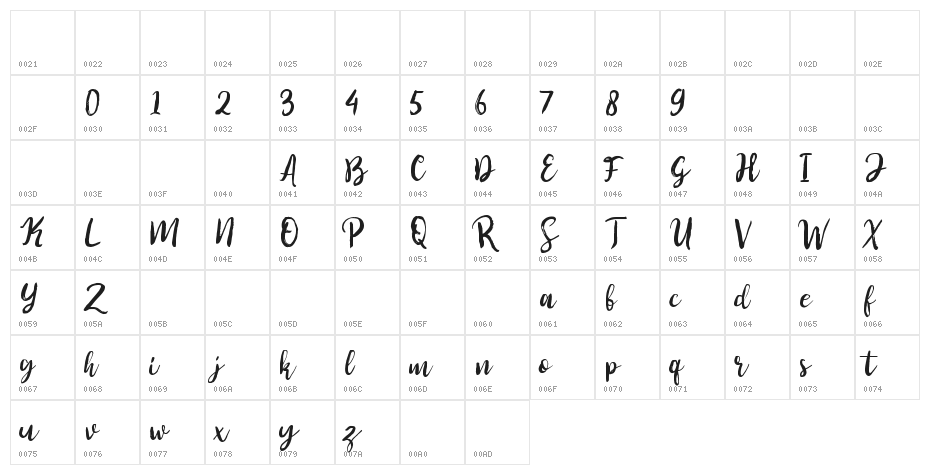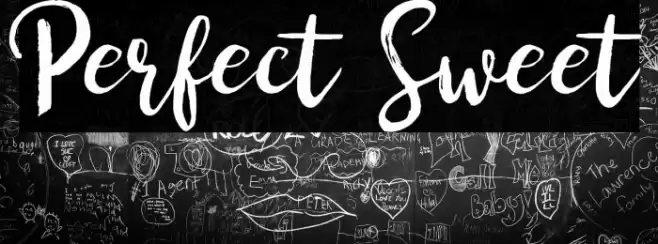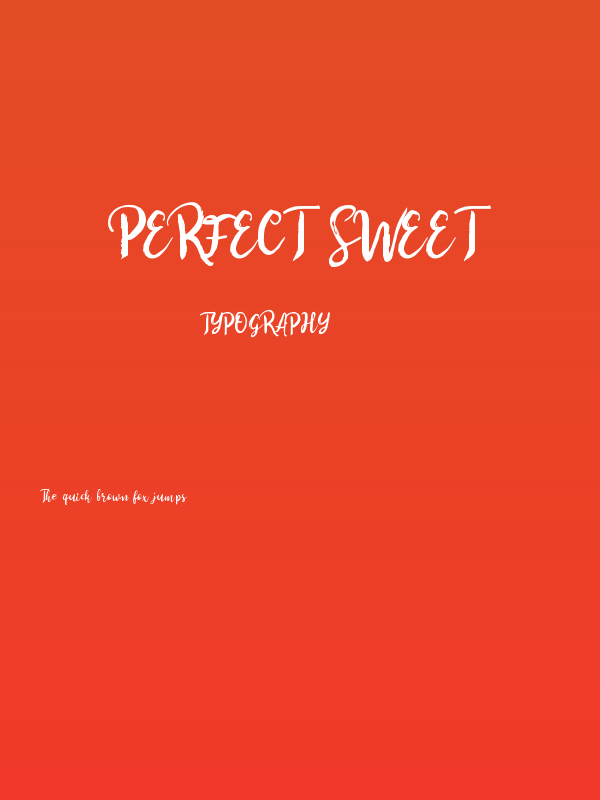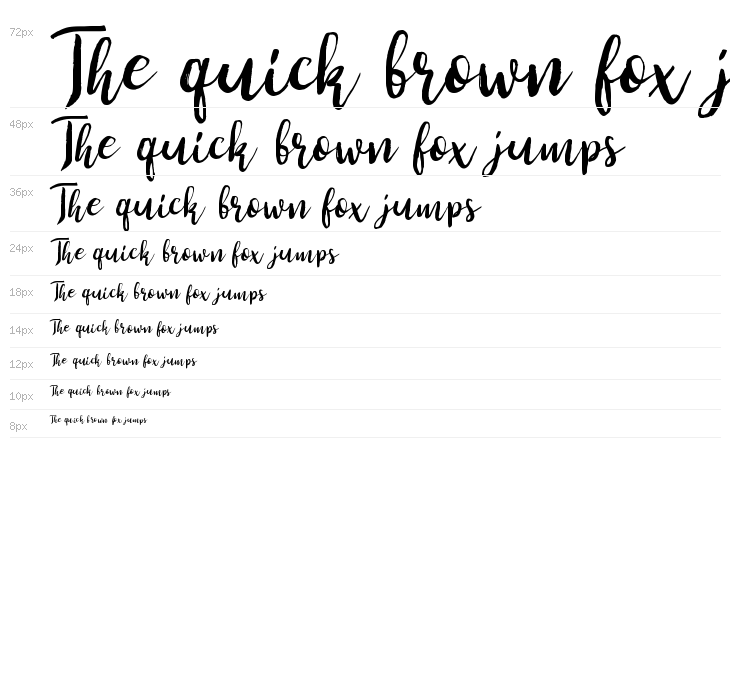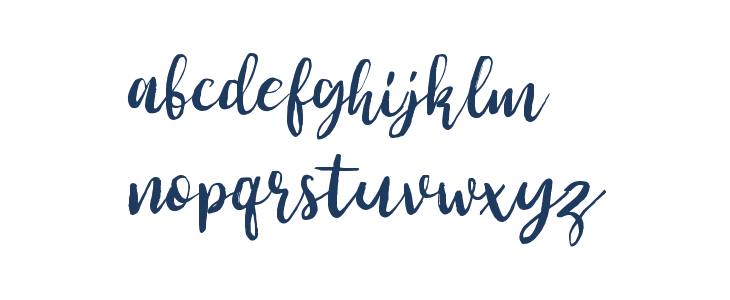
Perfect Sweet Font
Perfect Sweet Description
This font features a bold and expressive handwritten style, characterized by its fluid and dynamic strokes. The letters are crafted with a brush-like texture, giving them a lively and artistic appearance. Each character flows seamlessly into the next, creating a sense of movement and energy. The uppercase letters are bold and prominent, while the lowercase letters maintain a consistent style, enhancing readability. The numbers and special characters are equally expressive, maintaining the overall aesthetic of the font. This style is perfect for projects that require a personal and creative touch.
| Proposed Projects | Ideal for greeting cards, invitations, branding, and creative posters. |